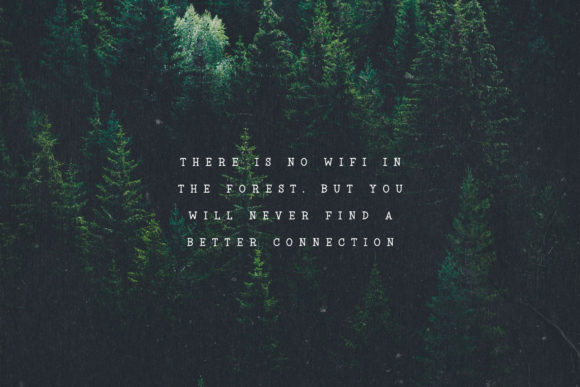
Into the Wild Font
Into the Wild is a cool and vintage styled slab serif font. No matter the topic, this font will be an incredible asset to your fonts’ library, as it has the potential to elevate any creation.